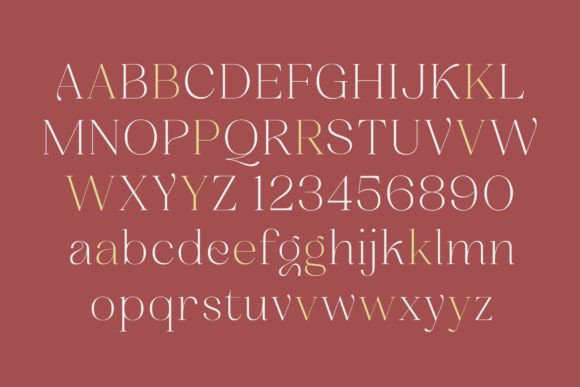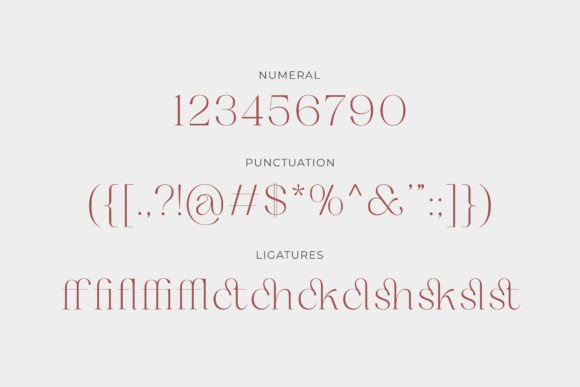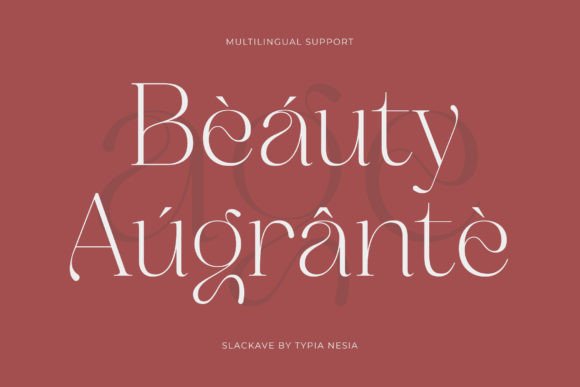
Slackave Font: An Elegant Serif for Modern Branding & Logo Design
About the Slackave Font
Experience the unique personality of Slackave Font, a font designed for impact. Slackave is an elegant serif font that brings a touch of beauty and sophistication to your design projects. Its graceful curves and timeless elegance make it a perfect choice for those seeking a classic yet contemporary aesthetic. This font is ideal for a wide range of applications, including branding, editorial design, invitations, and luxury packaging. Its elegant and beautiful appearance ensures that it enhances the visual appeal of any project, whether it’s for print or digital media. Slackave comes with ligatures, alternate characters, and comprehensive multilingual support, allowing for creative flexibility and precision.
Slackave Font Usage Examples
Slackave Font Example